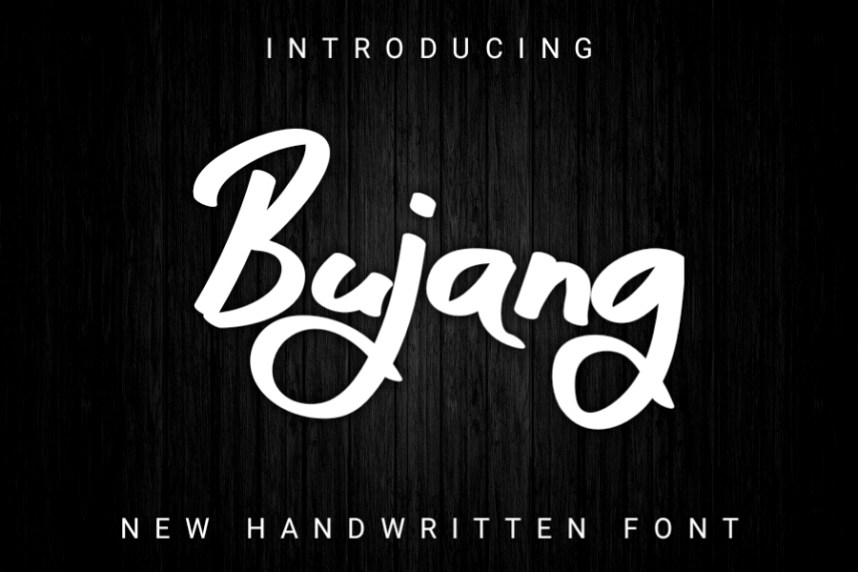
Bujang Brush Font
This is a bold and elegant handwritten font. Bujang will look outstanding in any context, whether it’s being used on busy backgrounds or as a standalone headline!